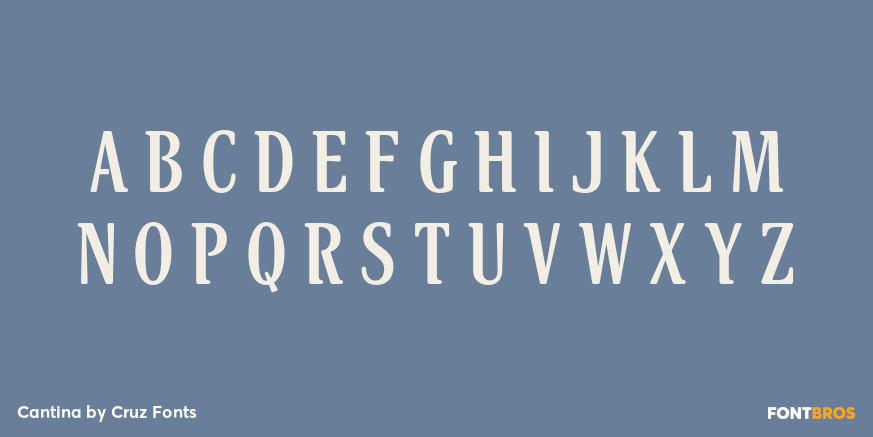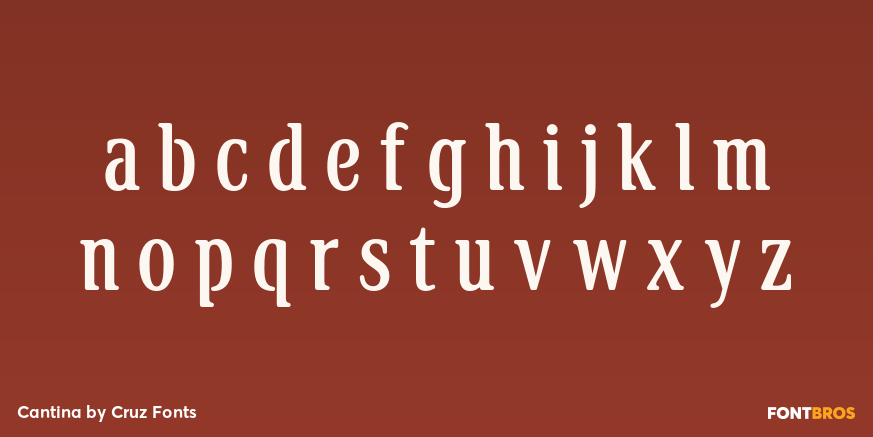
Cantina
Font Family by Cruz Fonts
Cantina is a display serif with a classic, high-contrast look shaped by oldstyle and transitional influences. Bracketed serifs, sharp terminals, and a subtle calligraphic character give it an elegant, vintage-leaning voice that feels refined rather than stiff.
Its editorial flavor makes it a strong choice for book covers, magazine-style typography, headlines, and other display settings where you want a more literary, historical tone. The overall impression is polished and expressive, with enough contrast and detail to stand out in titles, branding, and decorative layouts.
Offered as a single font style from Cruz Fonts, this family is a focused option for designers looking for a serif that balances classic structure with distinctive display presence.